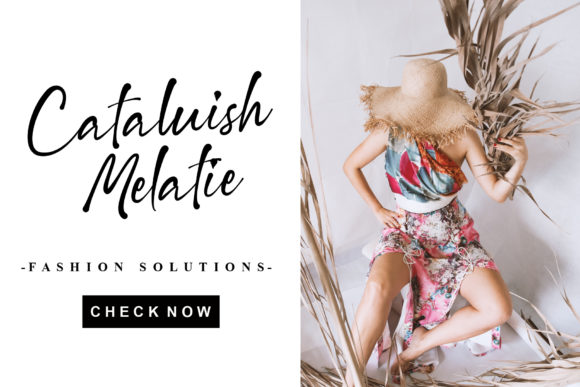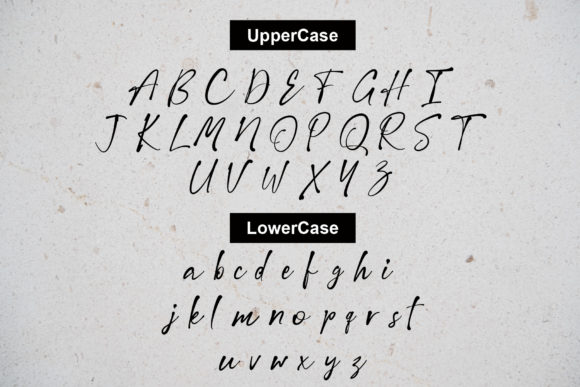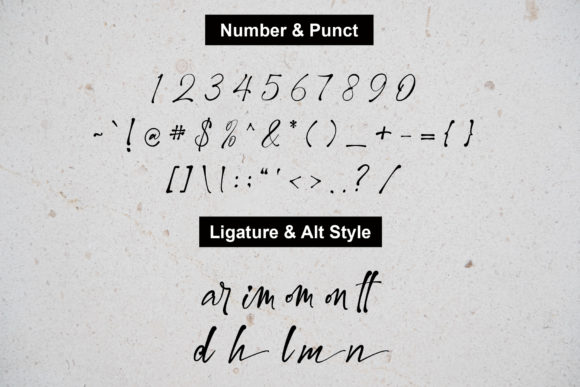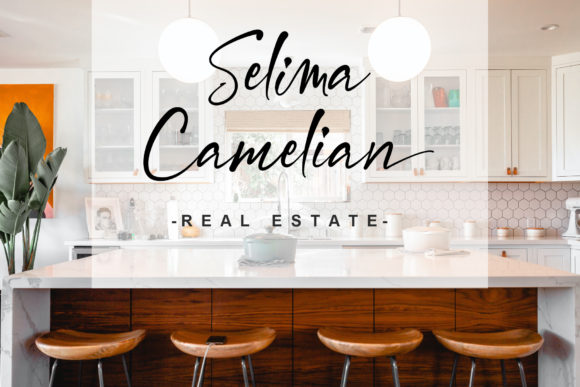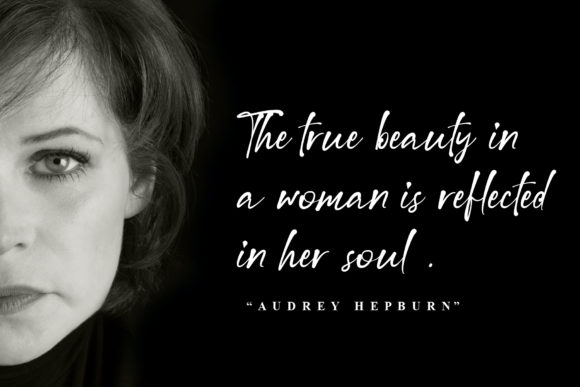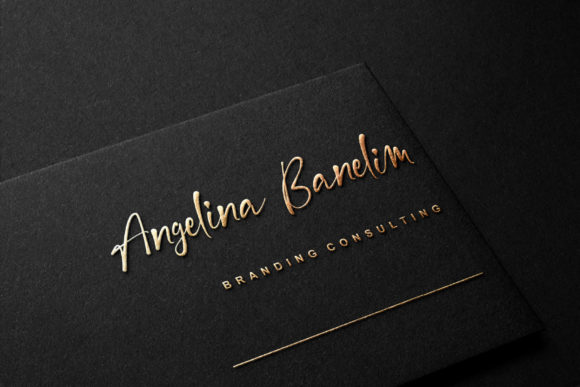
Introducing Cartalish Font: The Timeless Handwritten Font for Stunning Designs
Are you a designer or crafter looking for a font that can add a touch of elegance and sophistication to your designs? Look no further than Cartalish Font! This lovely and timeless handwritten font is perfect for creating eye-catching logos, branding, and quotes that will leave a lasting impression on your audience.
The Unique Charm of Cartalish Font
What sets Cartalish Font apart from other fonts is its unique and beautiful touch. Every letter has been carefully crafted to have its own distinct character, making it a true standout in the world of typography. Whether you’re looking to create a bold and statement-making design or a soft and subtle one, Cartalish Font is the perfect choice.
Cartalish Font is incredibly versatile and can be used for a wide range of design projects. Its elegant and sophisticated feel makes it perfect for creating stunning logos, branding, and quotes that will elevate your design to the next level. Whether you’re working on a business card, brochure, or social media graphic, Cartalish Font is sure to make your design stand out.
Why Choose Cartalish Font?
- Unique and Beautiful Touch: Every letter has a unique and beautiful touch that will make your design come alive!
- Timeless Design: Cartalish Font has a timeless design that will never go out of style.
- Elegant and Sophisticated: This font has an elegant and sophisticated feel that’s perfect for creating stunning designs.
- Versatile: Cartalish Font can be used for a wide range of design projects, from logos and branding to quotes and more.
Tips for Using Cartalish Font
- Use it as a Headline Font: Cartalish Font is perfect for use as a headline font, where its bold and statement-making qualities can really shine.
- Pair it with Other Fonts: Try pairing Cartalish Font with other fonts to create a unique and interesting contrast.
- Experiment with Colors: Don’t be afraid to experiment with different colors and textures to add depth and interest to your design.
| Font Name | Cartalish Font |
| Author | MechaStudio |
Key Features of Cartalish Font
| Font Type | Handwritten |
| Font Style | Elegant, Sophisticated |
| Use Cases | Logos, Branding, Quotes, Headlines |
| Unique Touch | Every letter has a unique and beautiful touch |